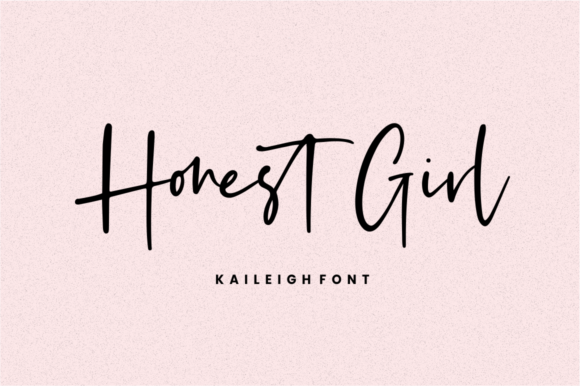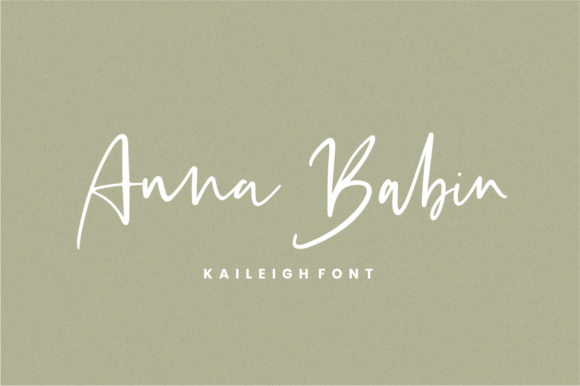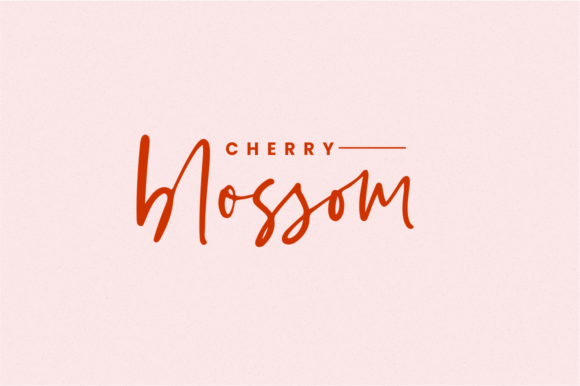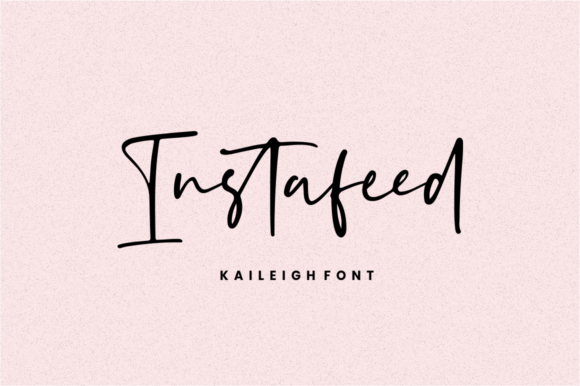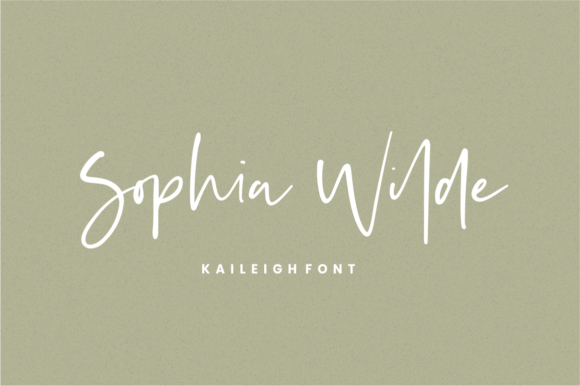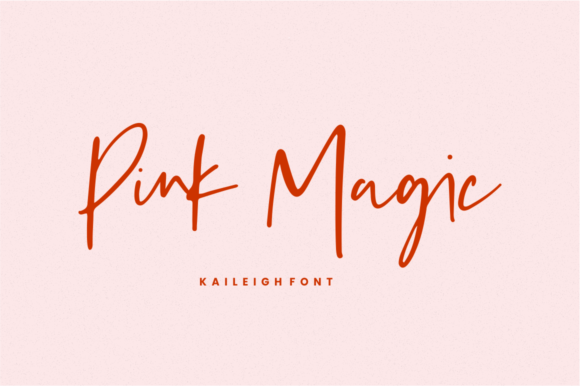
Introduction to Kaileigh Font
Have you ever stumbled upon a design project that just screams perfection? For many designers, it’s that moment when the perfect font comes together with the perfect concept, and the magic happens. For us, that moment arrived when we discovered the Kaileigh Font.
This stunning handwritten font is a game-changer for any creative project. Its unique, high-quality design makes it an ideal choice for designers looking to add a personal touch to their work. With its transparent background, Kaileigh Font seamlessly integrates with any design element, allowing the focus to be on the message rather than the font itself.
Key Features of Kaileigh Font
- High-quality, professional design ideal for creative projects, such as logos, branding materials, and graphics.
- Includes a variety of font styles and weights, offering flexibility for designers to customize their designs.
- Transparent background option allows for seamless integration with any design resource or image.
- Unique, elegant design aesthetic that sets it apart from other fonts, making it a great choice for designers seeking a distinctive look.
Honest Review: Kaileigh Font
I recently had the chance to work with the Kaileigh Font for a creative project, and I must say it’s a high quality design resource. The font itself is quite elegant and versatile, making it suitable for a wide range of designs.
One of the things that works well with the Kaileigh Font is its transparency, which allows for seamless background blending. This feature is particularly useful when creating graphics with transparent backgrounds. The font also comes in multiple weights and styles, making it easy to customize your design to suit your needs. ✨
- High quality and elegant design
- Transparent background for seamless blending
- Multiple weights and styles for customization
One limitation I noticed with the Kaileigh Font is that it may not be suitable for use in very small sizes, as the details can get lost. Additionally, some users may find the font a bit too elegant for certain designs, so it’s essential to consider the overall aesthetic you’re aiming for. ⚠️
The Kaileigh Font is a high-quality design resource ideal for any creative project. It’s a versatile font that can be used in a variety of contexts, from branding to editorial content. One of the standout features of the Kaileigh Font is its transparent background, making it easy to layer and composite with other design elements.
Tips and Best Practices
To get the most out of the Kaileigh Font, try using it in combination with other high-quality design resources. Experiment with different font sizes, colors, and layering techniques to create visually striking designs.
The Kaileigh Font is ideal for a range of creative projects, including:
- Editorial content and publications